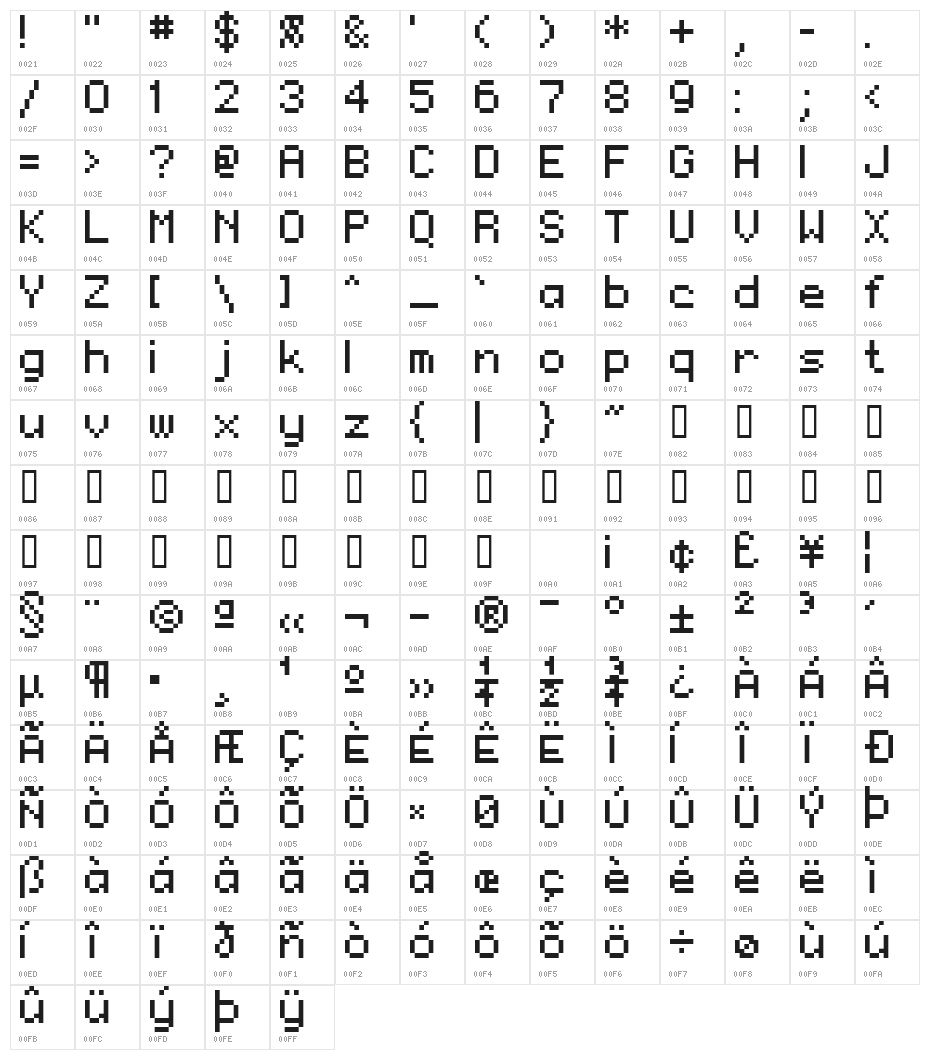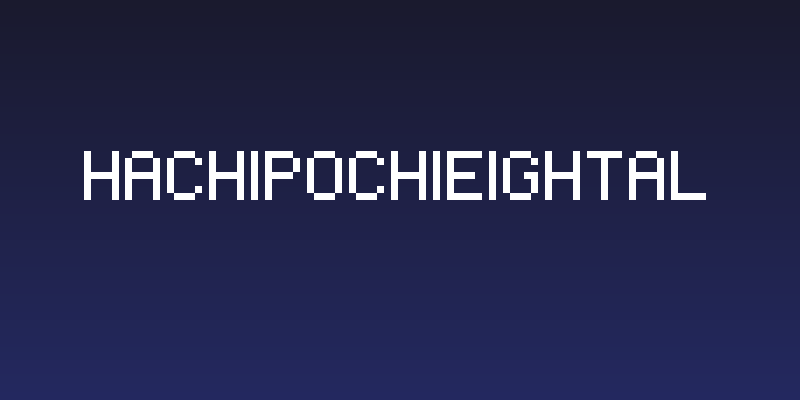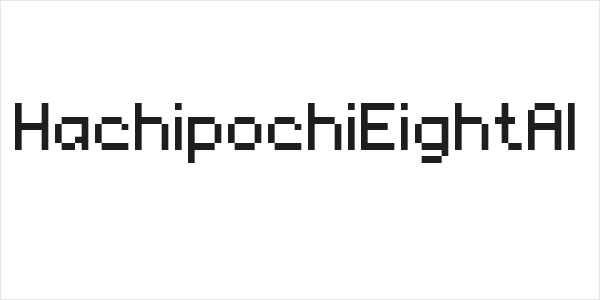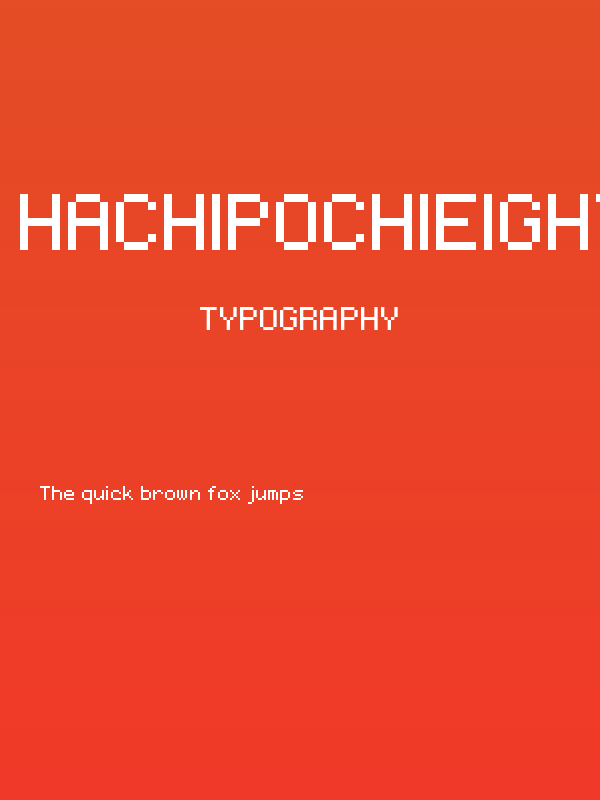
HachipochiEightAl Font
HachipochiEightAl Description
This font features a pixelated, blocky design reminiscent of early digital displays and retro video games. Each character is constructed with uniform square blocks, giving it a distinctly geometric and grid-like appearance. The uppercase and lowercase letters maintain a consistent height, while the numerals and special characters follow the same pixelated style. This font evokes a sense of nostalgia and simplicity, making it ideal for projects that aim to capture a vintage digital aesthetic. The uniformity and clarity of each character ensure readability, even at smaller sizes.
| Overall Style | Vintage |
| Use Case | Headlines, Logos, Digital Art |
| Proposed Projects | Ideal for video game design, retro-themed posters, digital art projects, and any creative work that seeks to evoke a nostalgic digital feel. |